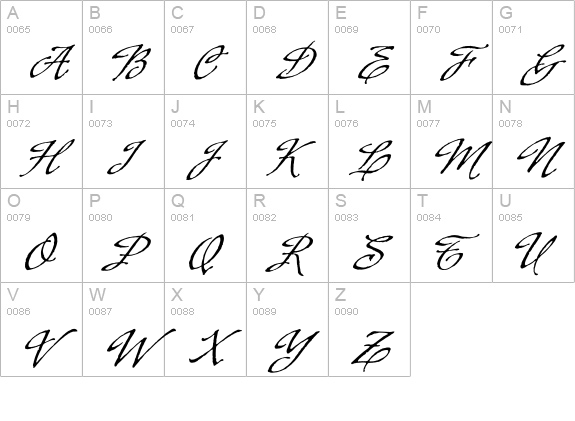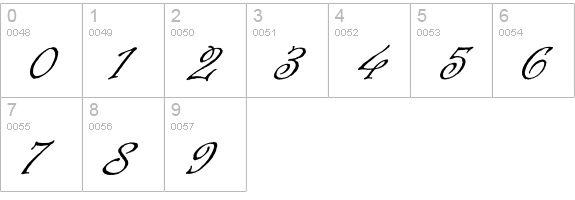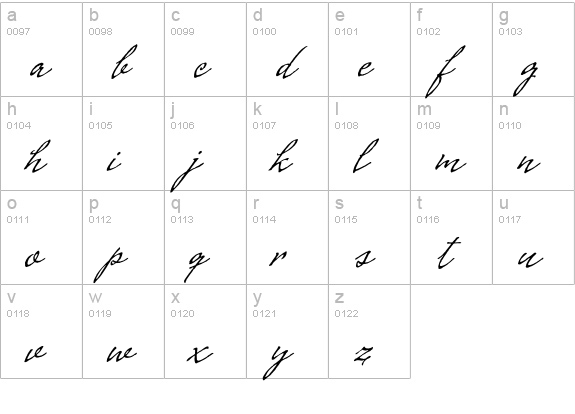
Cenizas-Alt Font Details
Cenizas-Alt is a stunning and versatile font that exudes elegance and sophistication. With its unique design and intricate details, this font is perfect for a wide range of creative projects, from branding to packaging to editorial design. The delicate curves and sharp angles of Cenizas-Alt create a harmonious balance that will captivate and inspire your audience. But the best part? Cenizas-Alt is completely free to download at FontsMarket.com! This means that you can elevate your designs with this beautiful font without breaking the bank. Whether you're a seasoned designer or just starting out, Cenizas-Alt is a must-have addition to your font collection. Download it today and see the difference it can make in your projects!